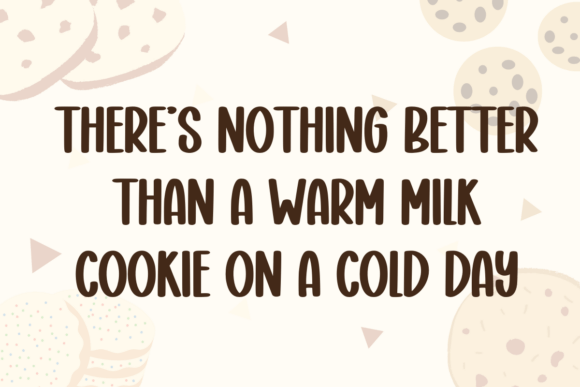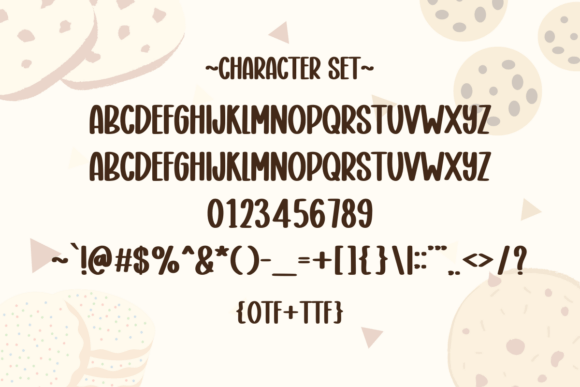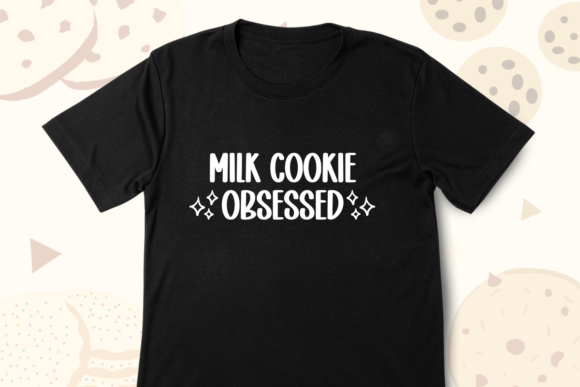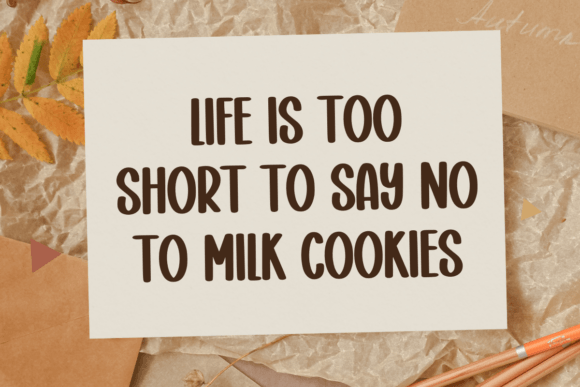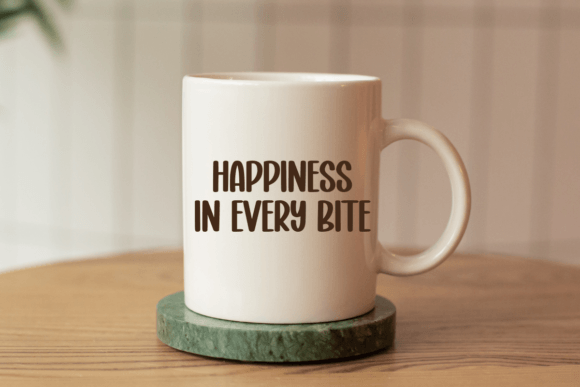
Introduction to Milk Cookies Font
Milk Cookies is a fun and bold sans serif font.
This font is perfect for various designs that are retro, fun, cute and bubbly .
Key Features of Milk Cookies Font
Why Choose Milk Cookies Font?